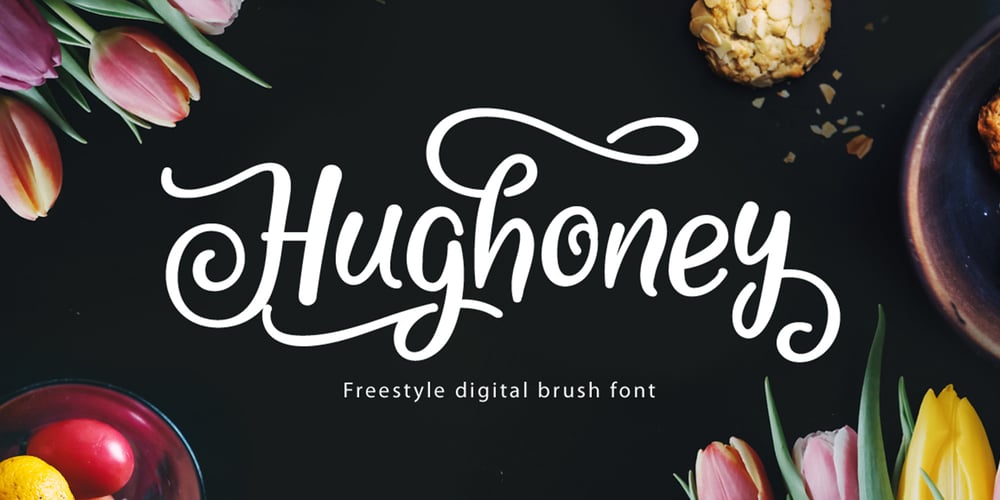
Hughoney Font Family was designed by Ahmad Ramzi Fahruddin and published by Arterfak Project. Hughoney contains 1 styles and family package options. Introducing our new exploration of a brush font, Hughoney . This freestyle script font is created by creative randomization the letter shapes. Gives minimalist, sweet, elegant and solid looks to your creative projects. This font has a lot of feature that you can apply as you need. The features in this font have a consistent adjustment with the basic letters. This sweet brush font is suitable for your poster, quotes, t-shirt design, menu, product design, invitation, etc. Very recommended for Headline or your display. We hope you are interested.